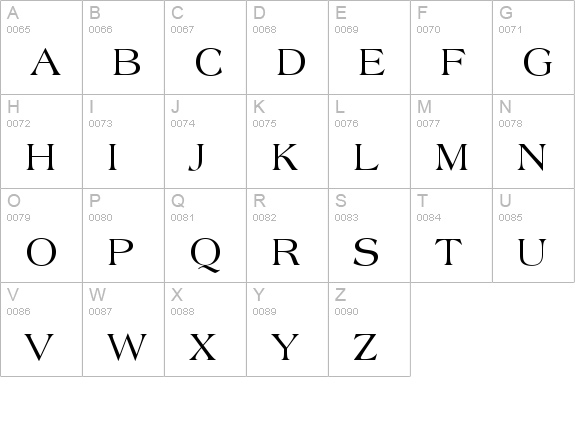
Americana Font Details
Americana font is a timeless and versatile typeface that exudes a sense of nostalgia and classic American design. Featuring bold, clean lines and a touch of vintage flair, Americana is perfect for adding a touch of Americana to your projects. Whether you're designing a poster, logo, or website, Americana font will give your work a bold and impactful look. The best part? Americana font is available for free download at FontsMarket.com! Just head over to the website to grab your copy and start using this iconic font in your designs today. With Americana font, you can add a touch of Americana charm to your projects without spending a dime. Download now and let the timeless appeal of Americana font elevate your designs to the next level.